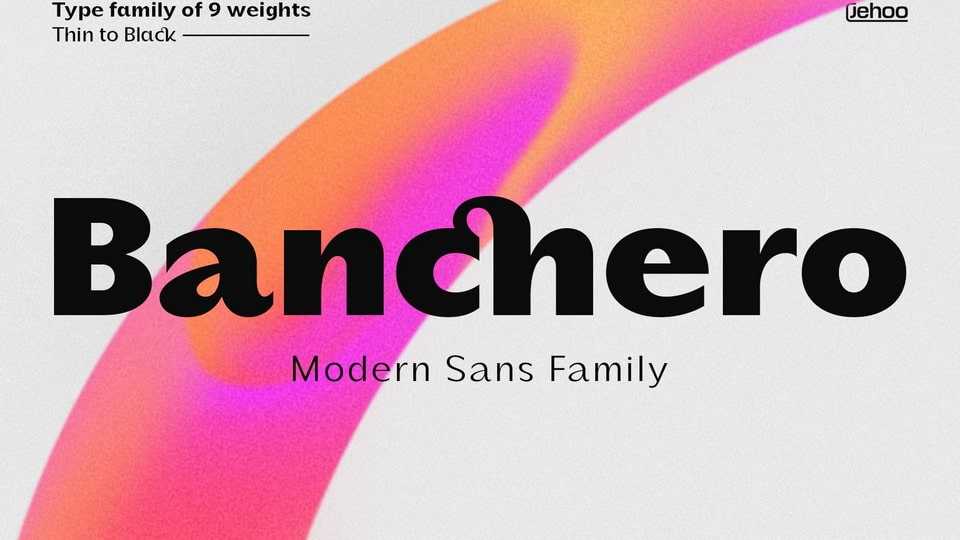
Download Banchero font, a sans serif typeface inspired by charming vintage designs, bringing a relaxed and elegant feel to contemporary typography. The strong sans base features graceful discretionary ligatures between sensitive letters, so this font is useful for all kinds of design needs.
Designer: Jehoo Creative